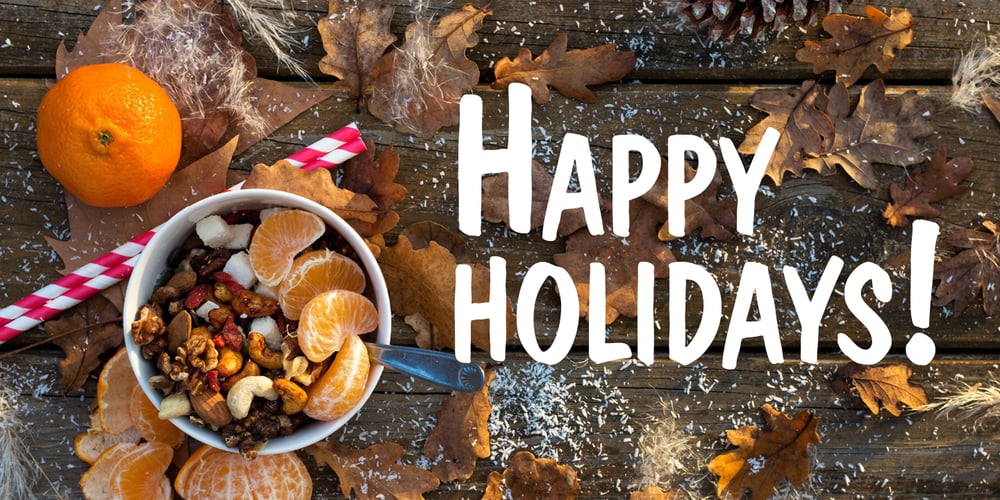
Dom font
Dom Font Family was designed by Dmitry Kirsanov and published by ParaType. Dom contains 4 styles and family package options. Dom was designed by Peter Dombrezian for American Type Founders in 1951–52.It is an informal, unjoined script typeface that resembles brush lettering. The letters are almost monotone and drawn in a free and casual style. Vertical strokes have irregular endings at varying heights, and the ovals have slightly different slants, adding to its organic charm.This typeface is versatile, lending a warm and approachable feel suitable for a wide range of applications. It excels in creating inviting signage, engaging advertisements, and charming invitations.The Cyrillic version of the Bitstream digital font Dom was developed by Dmitry Kirsanov for Paratype in 2008.Dom main characteristics: 4 styles in total 560+ glyphs in each style 12 OpenType features Extended Latin and Cyrillic support And if you need font files in different formats or want to try this font, just drop us a line at info@paratype.net, and we’ll work something out.